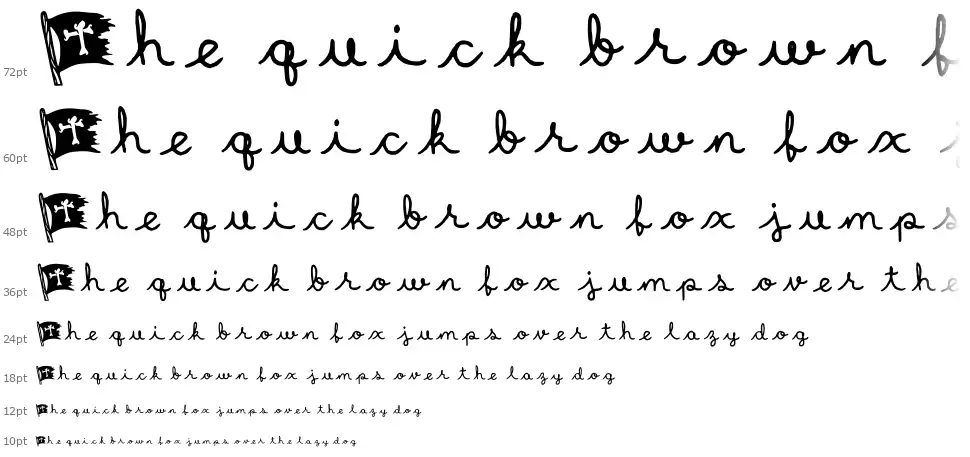
Hoist The Colors Font
Hoist The Colors Font By Dug Mcugly Fontriver Use the halloween font hoist the colors if you want your coming design to stand out. even though this pirate font doesn’t have any numbers, the capital letters are flagged, and the lowercase letters are written by hand, which can give your digital works a dark feel. Download hoist the colors font from free cdn or use it on your website as webfont. This font features a unique combination of decorative uppercase letters that resemble flags waving in the wind, creating a dynamic and adventurous feel. the lowercase letters contrast with a smooth, handwritten style, offering a more casual and approachable look. Discover and customize the font hoist the colors and other similar fonts, ready to share in facebook and twitter. Hoist the colors fonts package designers are sharing free fonts every day! ttf,otf,woff files and web font. This font features a unique combination of decorative uppercase letters resembling flags and a handwritten style for lowercase letters. the uppercase characters are bold and display a pirate themed aesthetic, while the lowercase letters are more delicate and cursive.